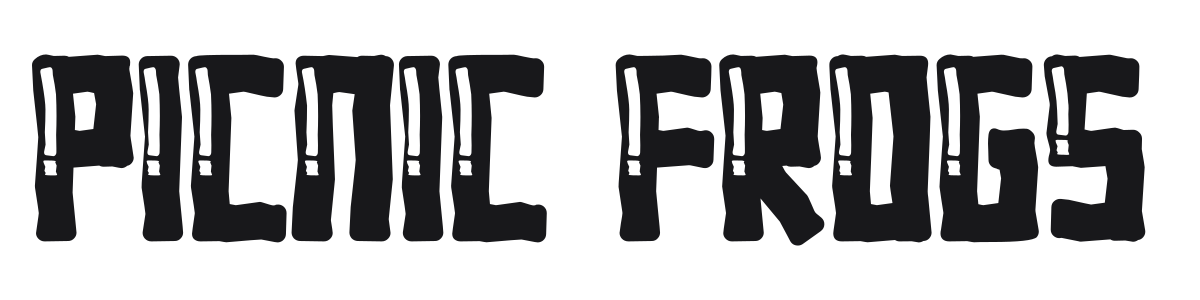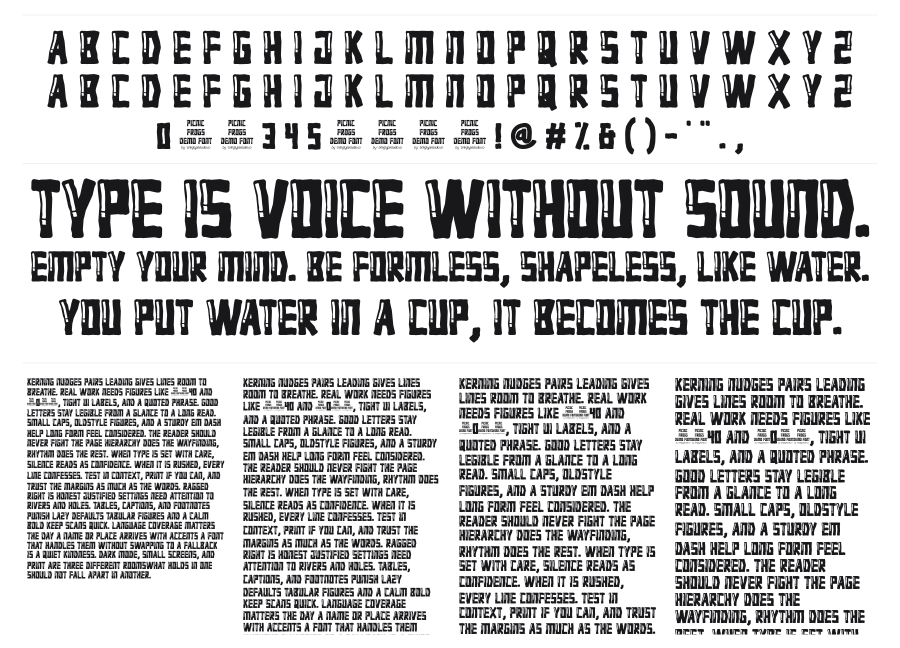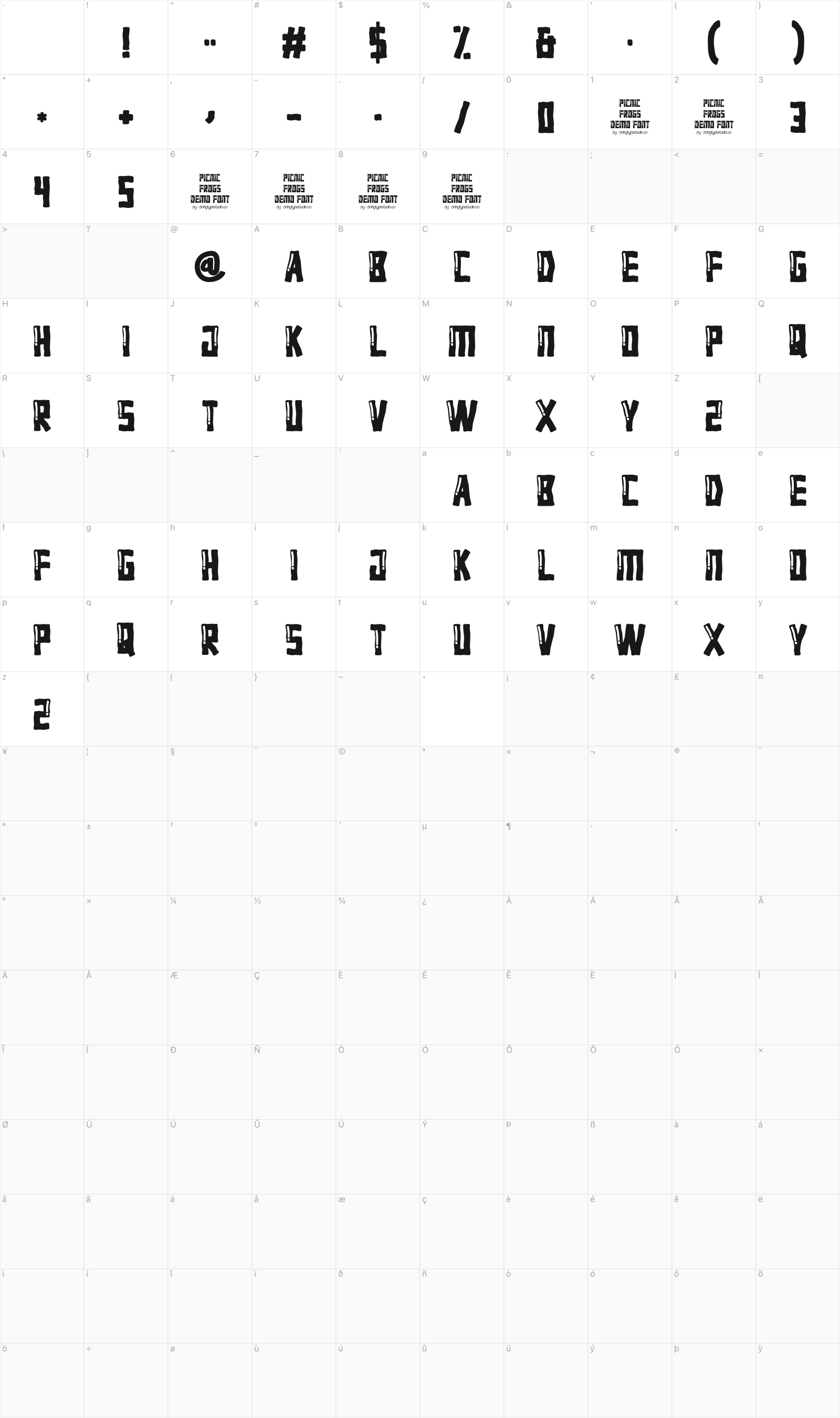
Picnic Frogs
Picnic Frogs is a heavy condensed display face with a rough, woodblock-printed texture built into every stroke. The distressing is bold and deliberate, giving the font a hand-crafted, slightly wild quality that sits somewhere between a campsite sign and a punk zine. It works best at large sizes where the texture can breathe.